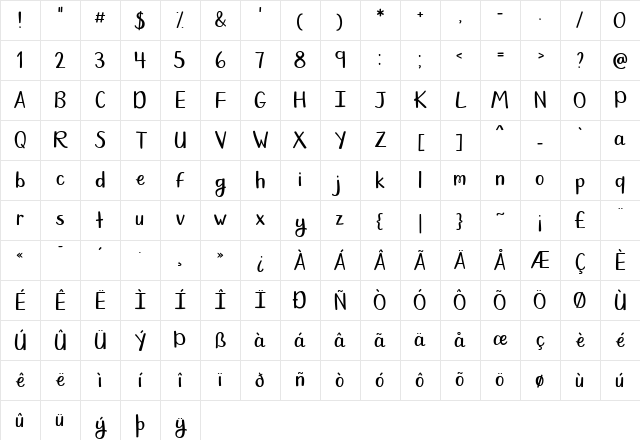
Days of Love Regular
Foundry: Misti's Fonts
Designer: Misti's Fonts
Design Context for Days of Love
Days of Love is a composed and adaptable typeface that performs quietly and consistently across a wide range of design contexts.